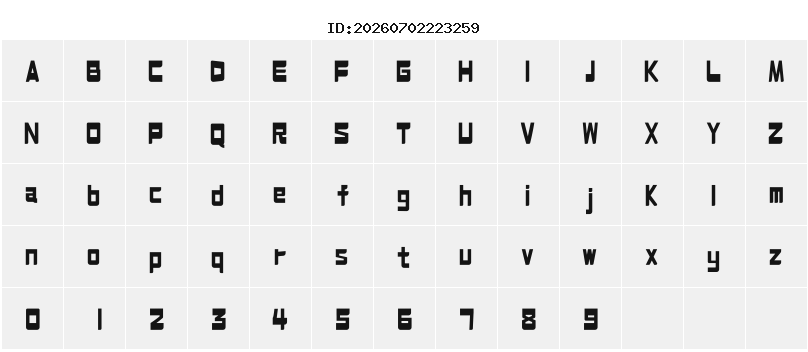
268-上首黑仪体 Preview
About 268-上首黑仪体.ttf
268-上首黑仪体.ttf is a modern, elegant sans-serif font designed for ultimate readability and visual harmony. Perfect for branding, headlines, web design, and print materials.